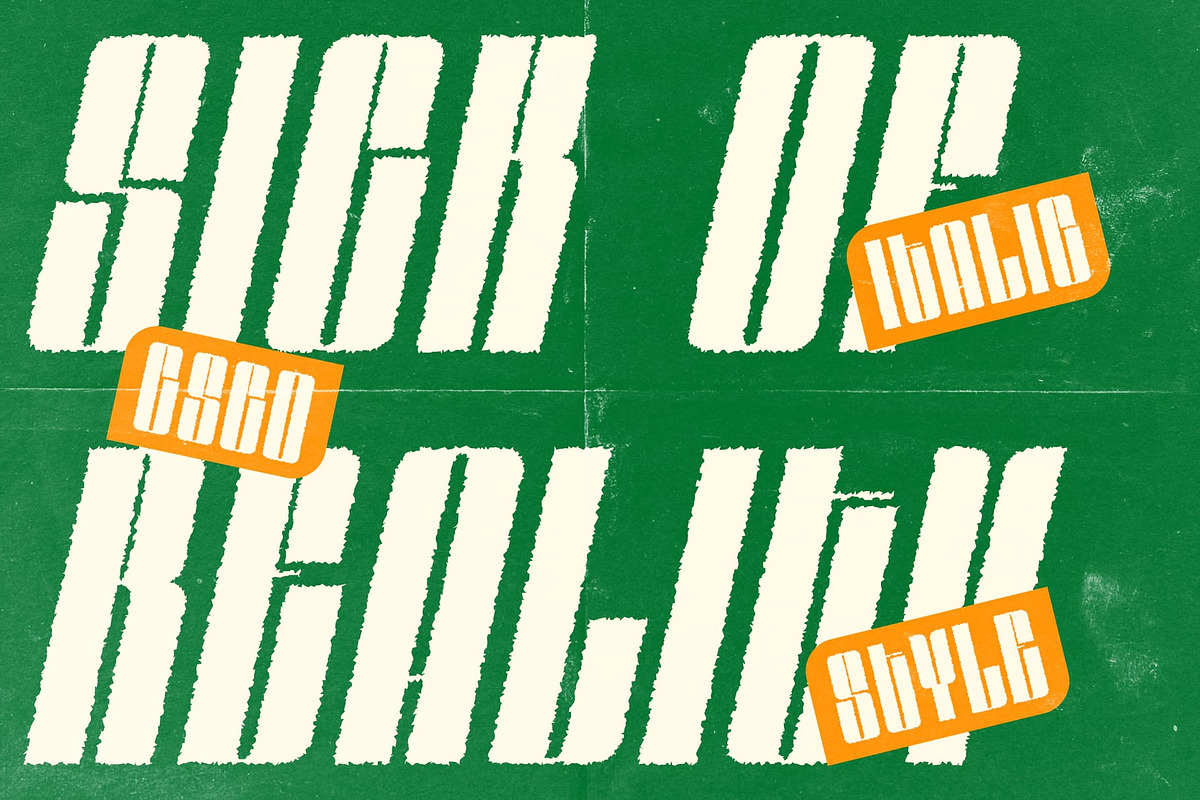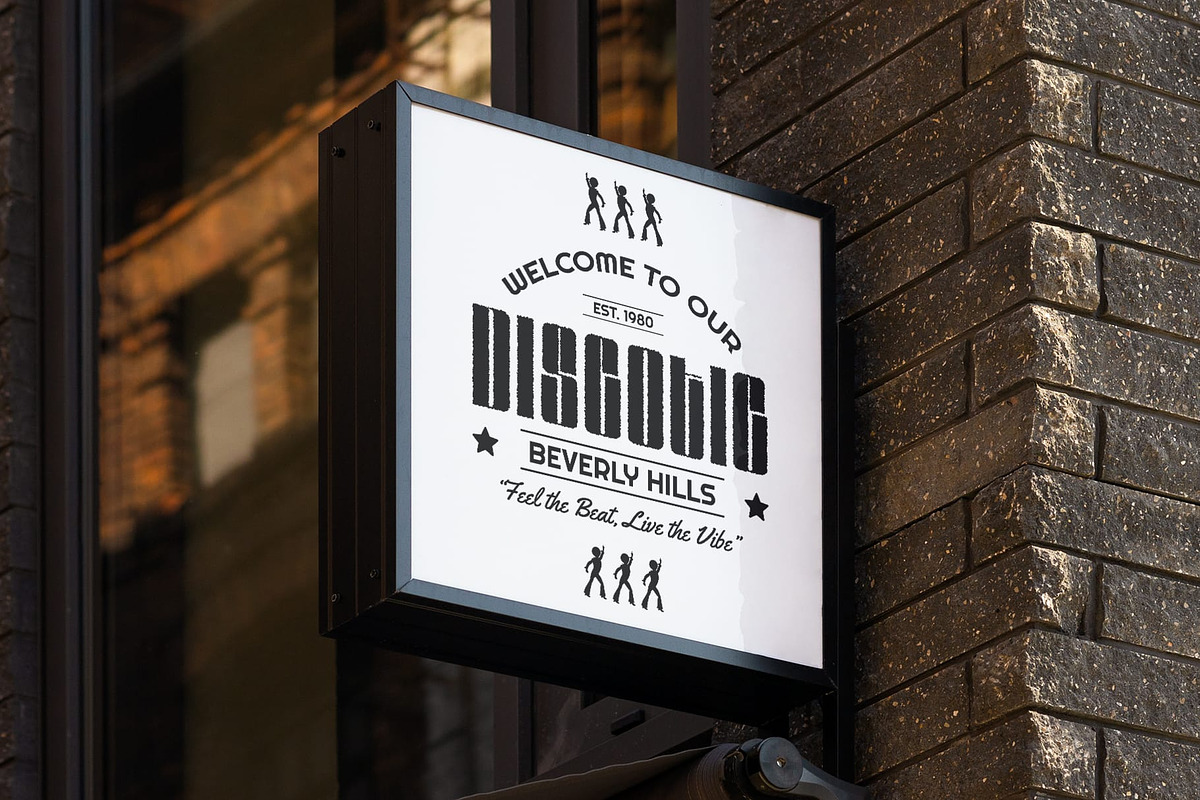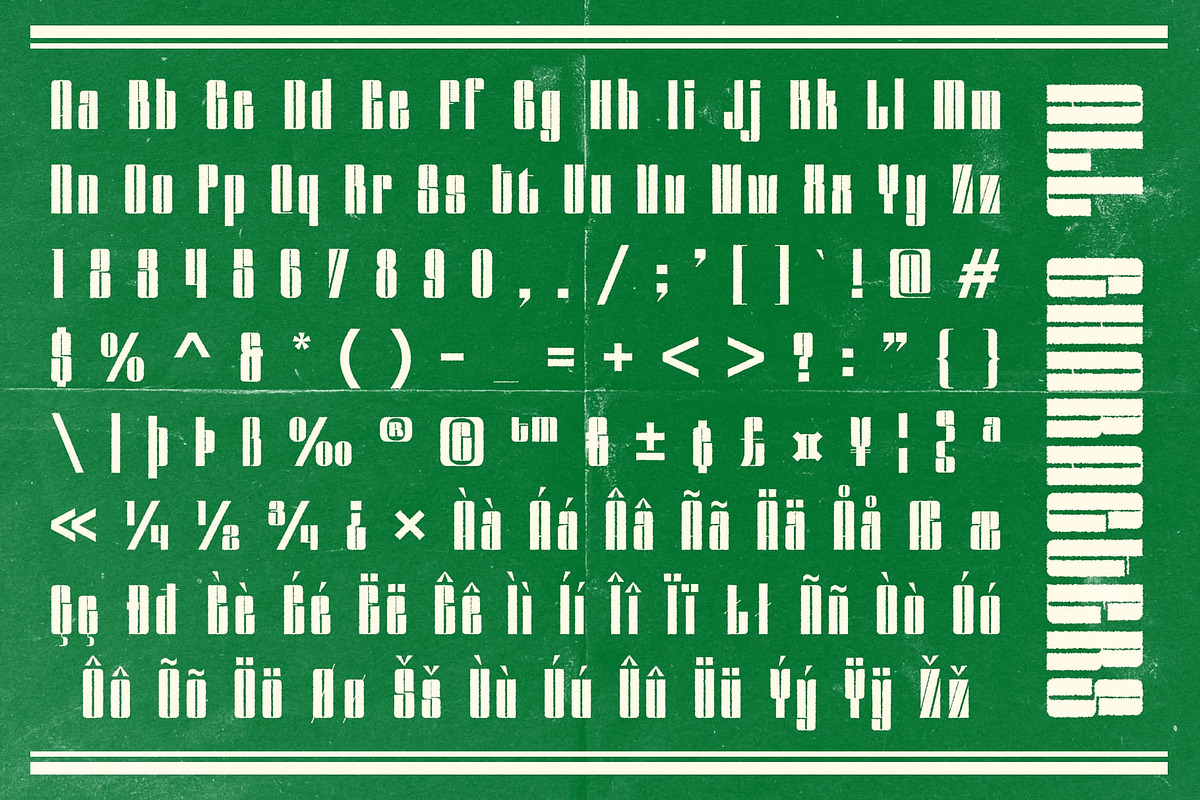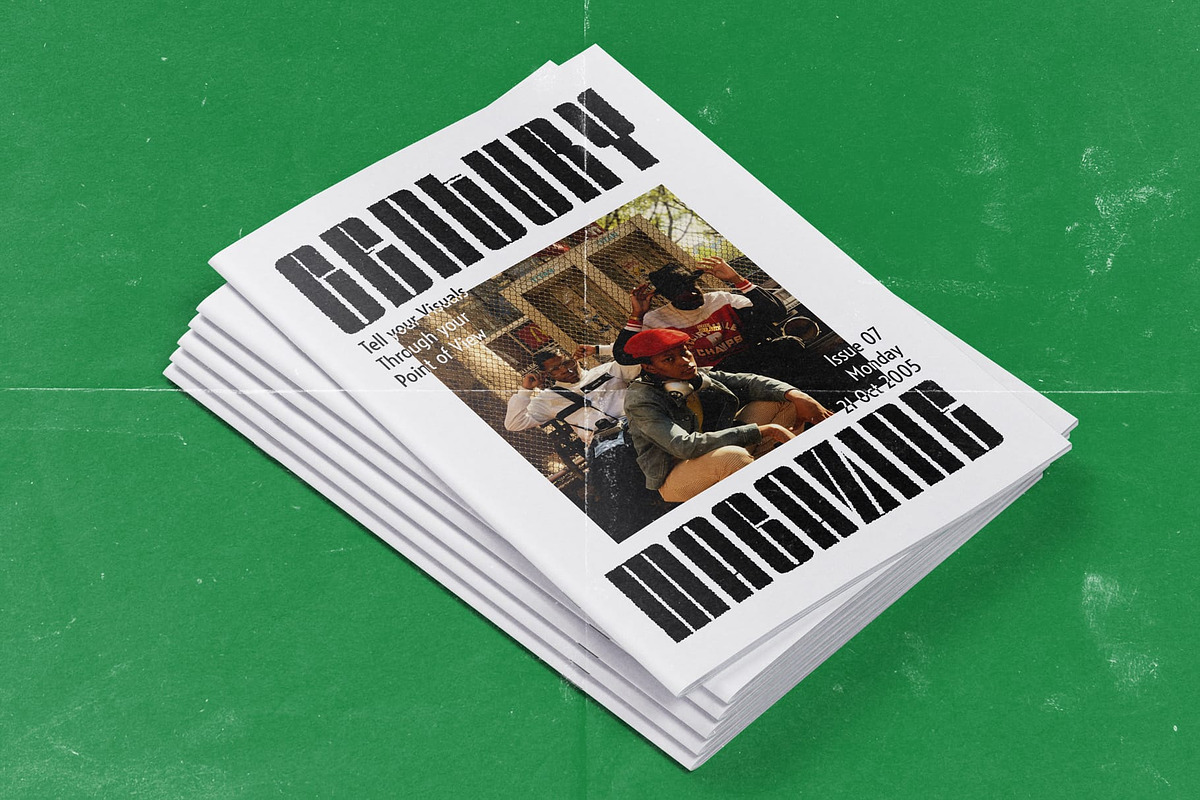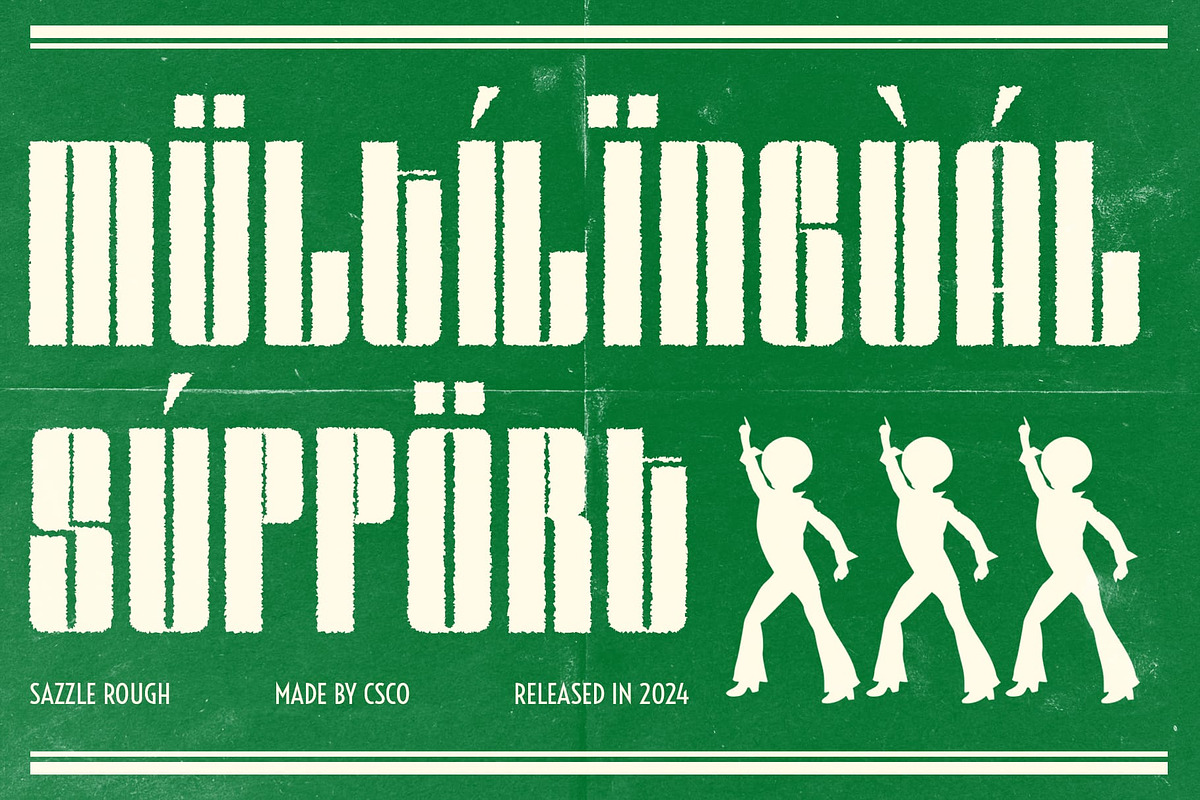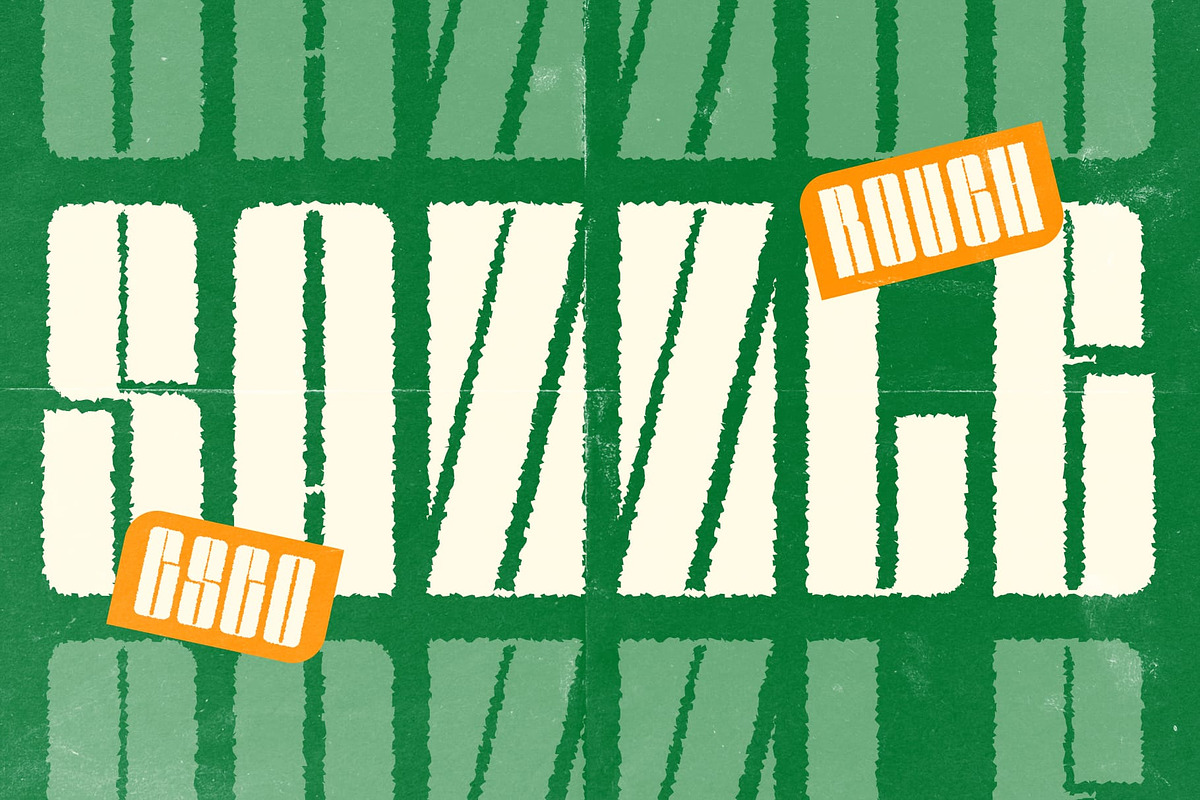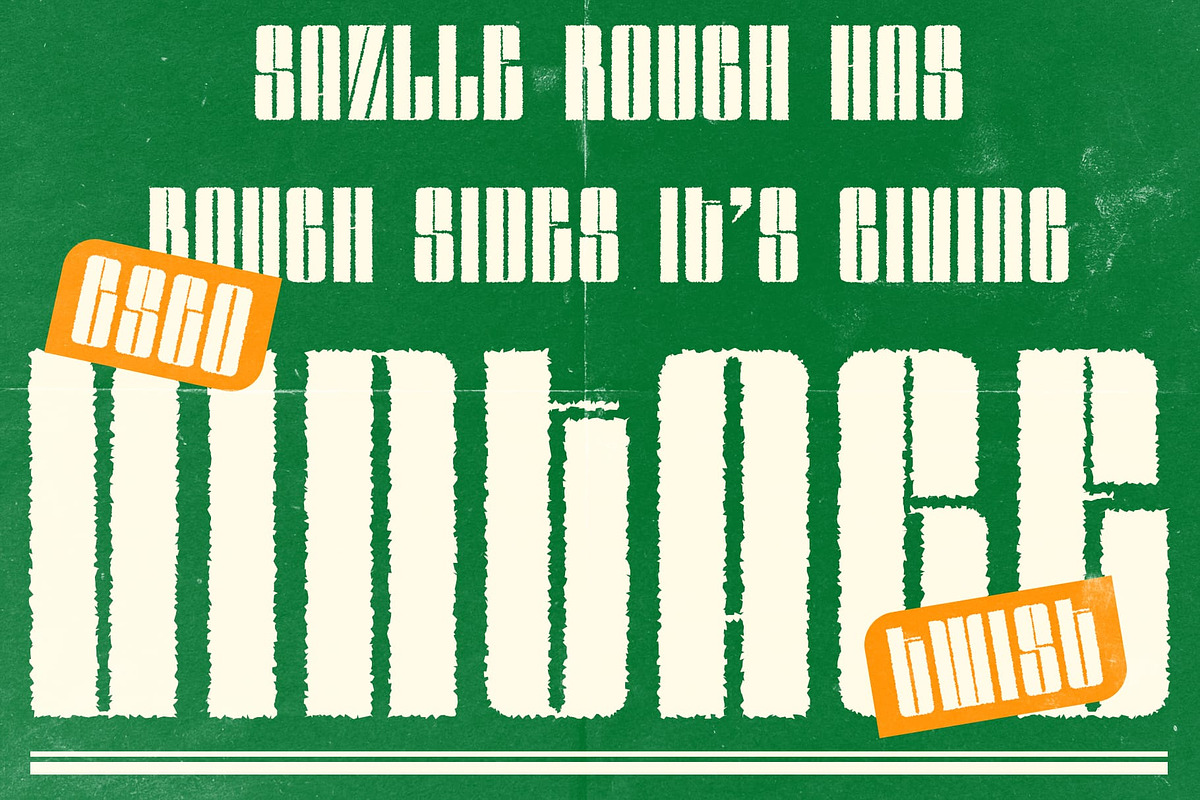
Sazzle Rough
Sazzle Rough – Bold Condensed Sans Serif Font with Textured Impact
Striking Bold and Compact Design Sazzle Rough stands out as a bold sans serif font with a condensed design that delivers a powerful and compact impression. Its bold weight ensures exceptional visibility and a commanding presence, making it perfect for designs where prominence is key. The condensed style optimizes space efficiency, allowing for more text to fit within tighter areas while maintaining clear readability.
Distinctive Textured Artistic Edge What sets Sazzle Rough apart is its rough effect, which introduces a unique, textured quality to the font. This artistic touch provides a slightly raw and rugged appearance, adding depth and character to the letterforms. The combination of bold and condensed elements with the rough texture creates a visually striking contrast, giving the font a distinctive and creative edge.
Versatile for Bold and Creative Applications Sazzle Rough’s versatile design makes it ideal for a variety of design projects that require both impact and creativity. Whether you’re working on branding, posters, promotional materials, or any project that demands standout text, this font provides a bold and memorable look. Its ability to blend strength with artistic flair ensures it captures attention and makes a lasting impression.